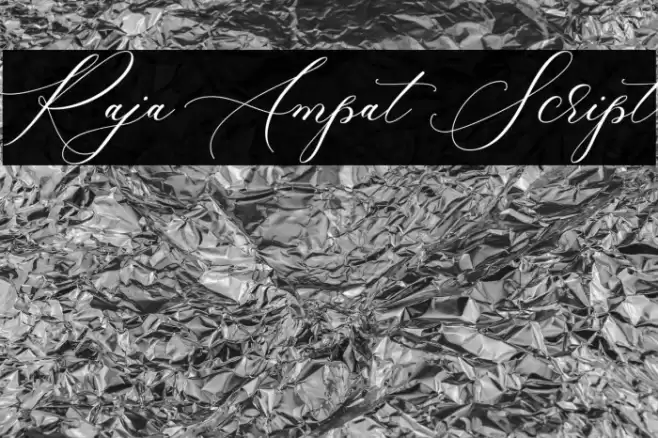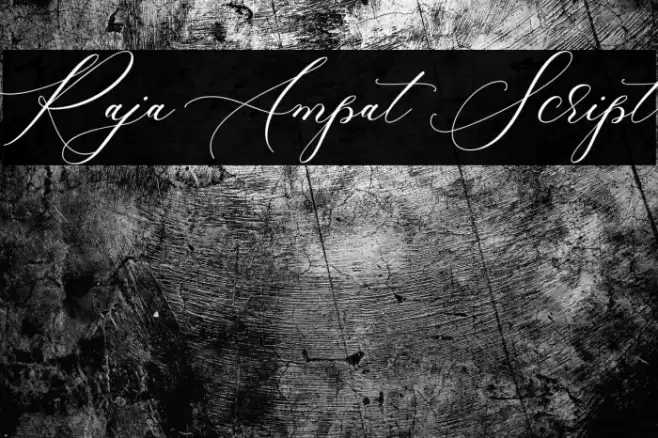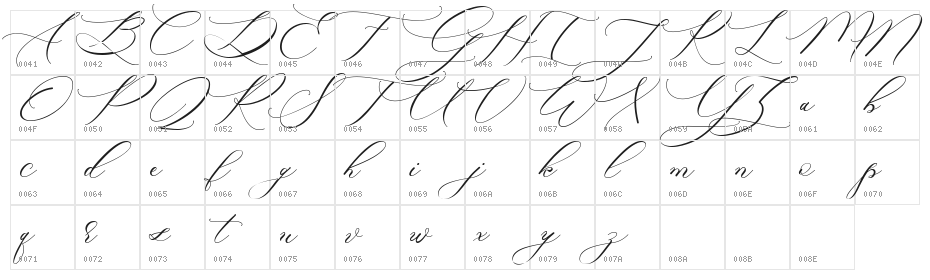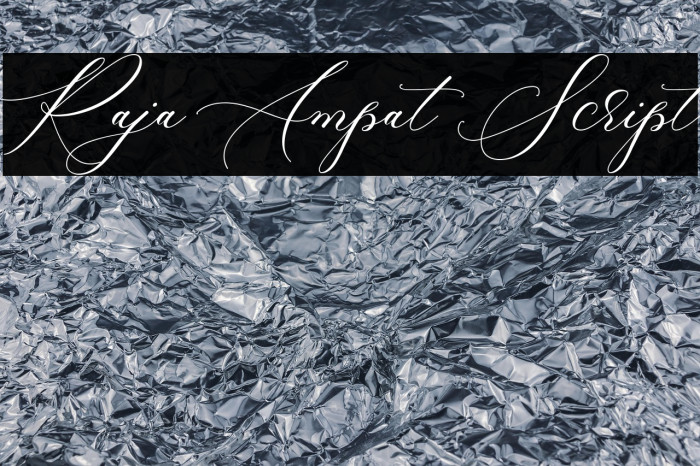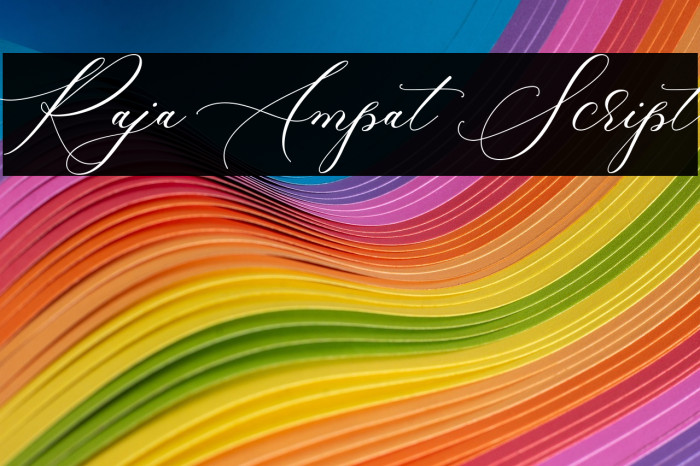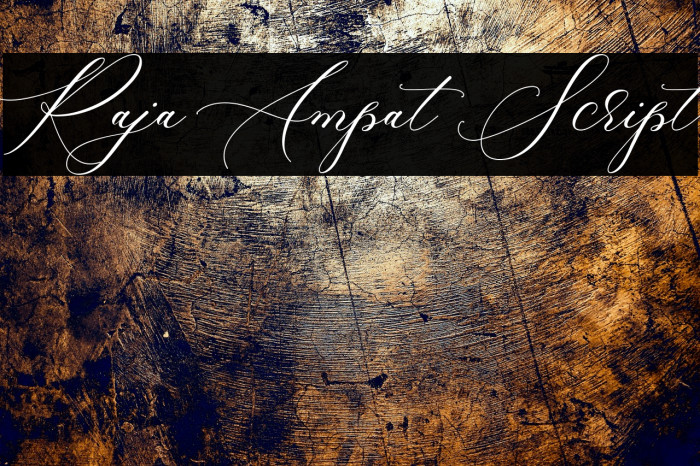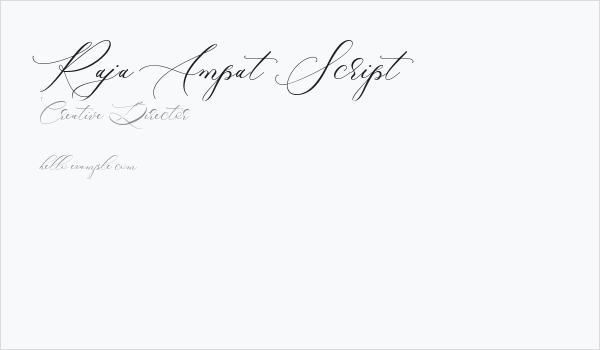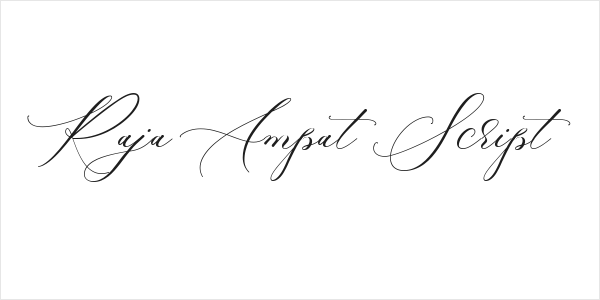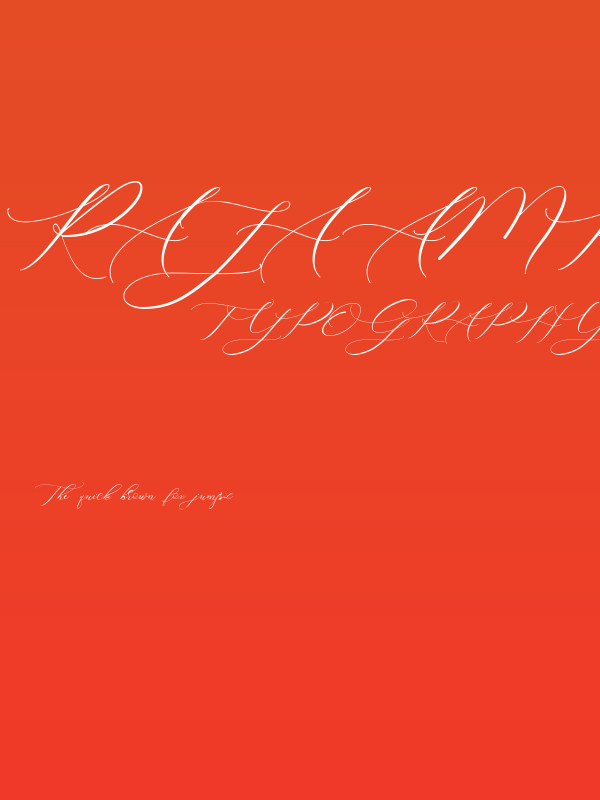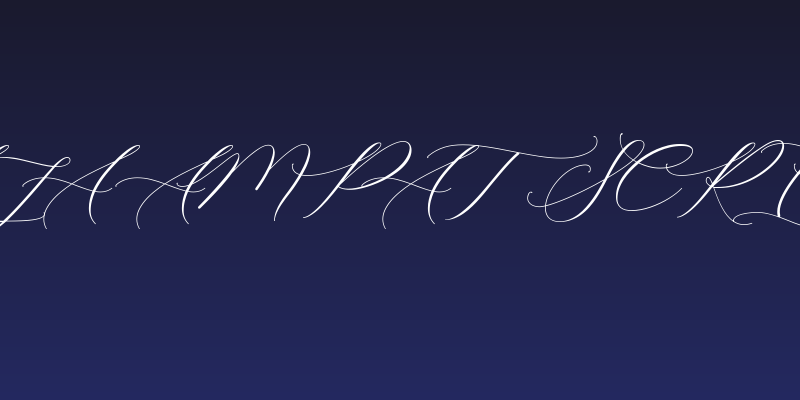
Raja Ampat Script Font
Raja Ampat Script Description
This elegant script font features flowing, interconnected letters with graceful curves and flourishes. The uppercase letters are particularly ornate, with extended strokes that add a sense of sophistication and movement. The lowercase letters maintain a consistent style, with smooth transitions and a harmonious balance between thick and thin lines. The font's overall appearance is both artistic and refined, making it suitable for formal invitations, branding, and decorative purposes. The numbers and special characters are designed to match the script's fluidity, ensuring a cohesive look across all text elements.
An elegant and ornate script font with flowing, interconnected letters and graceful flourishes from Regular fonts.
- Font: Raja Ampat Script
- Proposed Projects: Ideal for wedding invitations, luxury branding, greeting cards, and decorative signage.
- Use Case: Logos, Invitations, Decorative text